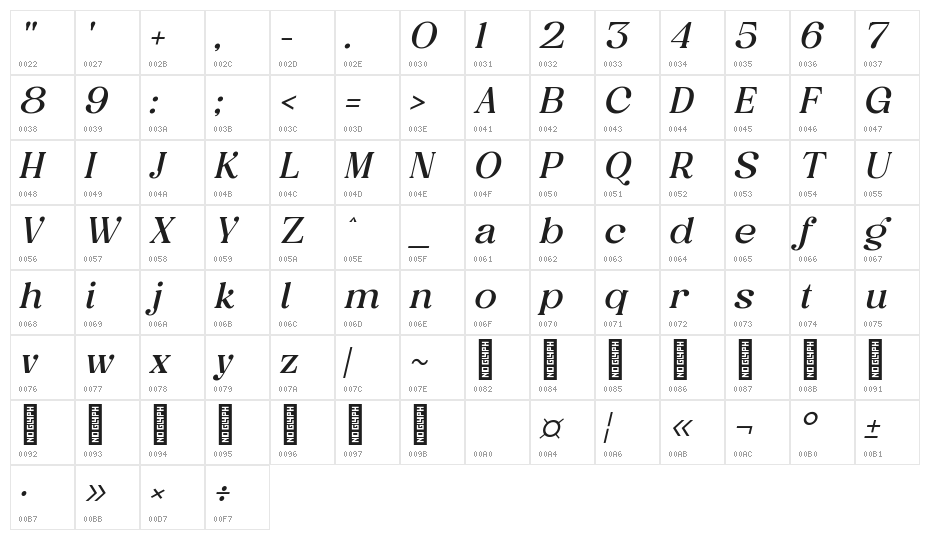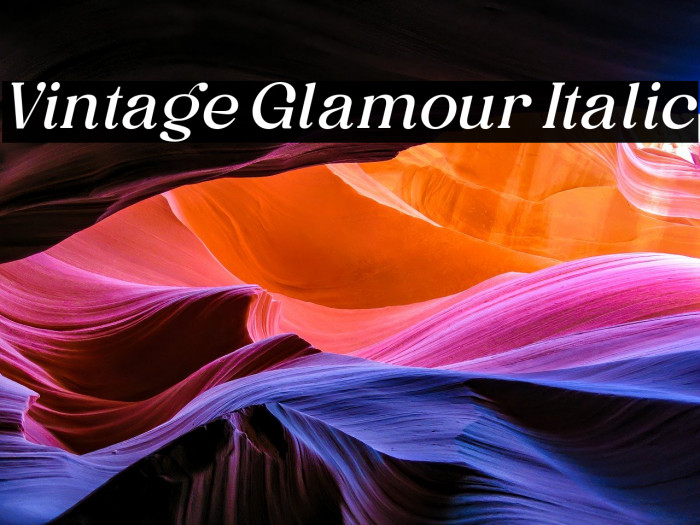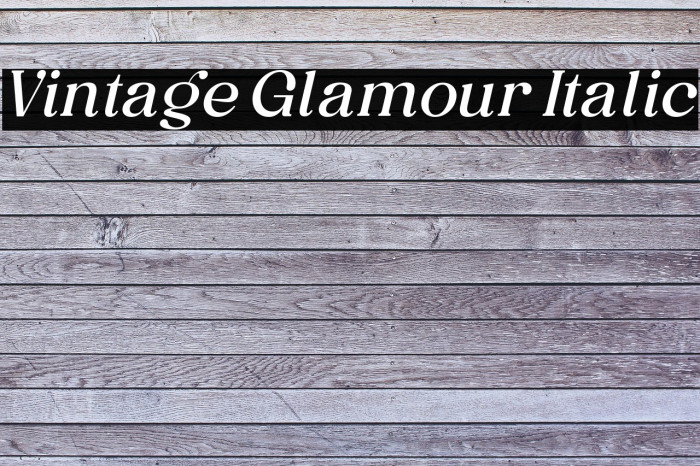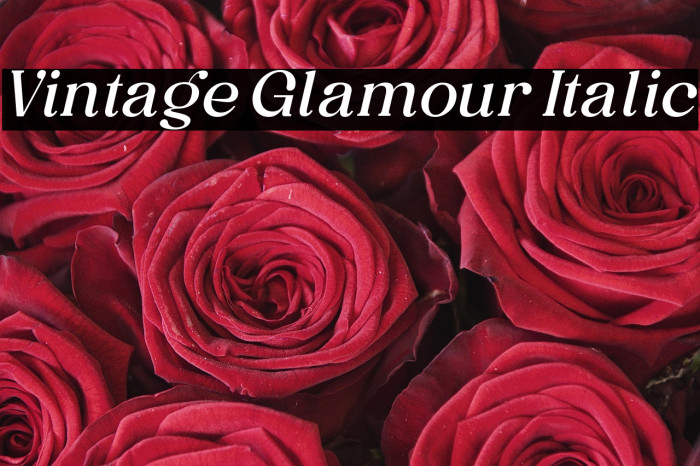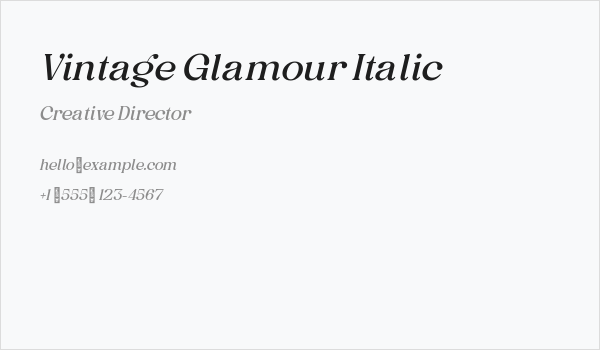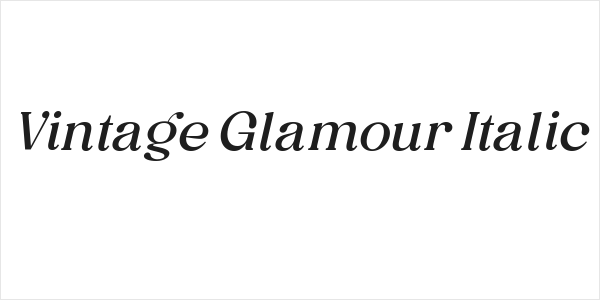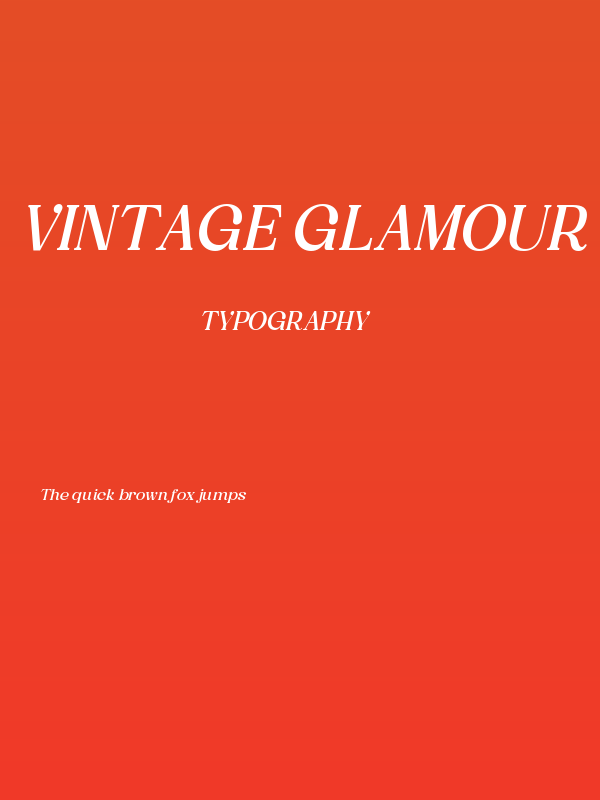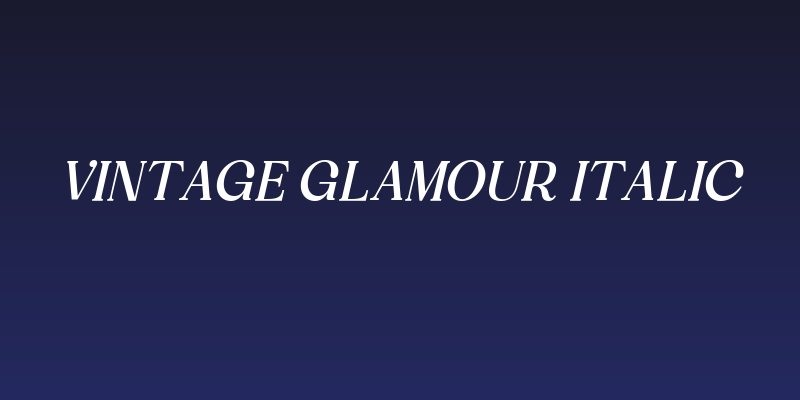
Vintage Glamour Italic Font
Vintage Glamour Italic Description
This elegant serif font exudes a sense of sophistication and timeless style with its italicized form. The letters are gracefully slanted, adding a dynamic flow to the text. The strokes are moderately thick, providing a balanced contrast that enhances readability while maintaining an air of refinement. The serifs are pronounced yet not overly ornate, contributing to a classic aesthetic. This font is versatile, suitable for both formal and creative applications, and its italic nature adds a touch of glamour and movement to any design. The numerals are consistent with the letterforms, ensuring a cohesive look across all characters. Special characters are included, maintaining the font's overall elegance and functionality.
Overall StyleClassic
Use CaseHeadlines, Logos, Invitations
Proposed ProjectsIdeal for wedding invitations, luxury branding, editorial design, and elegant packaging.